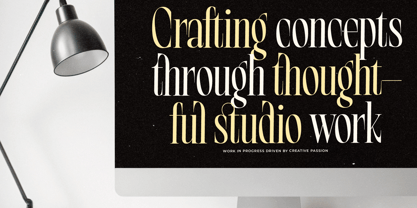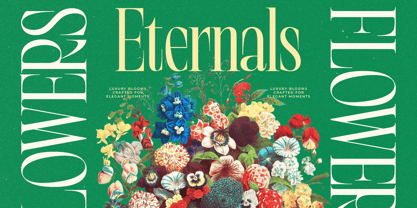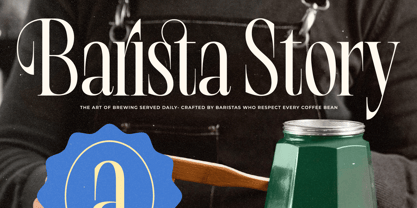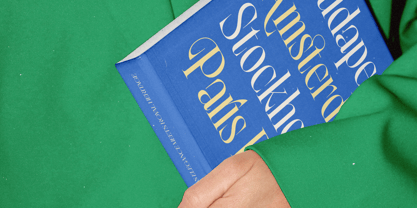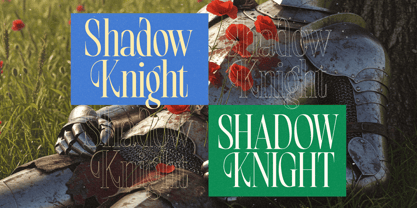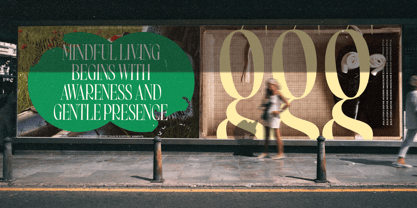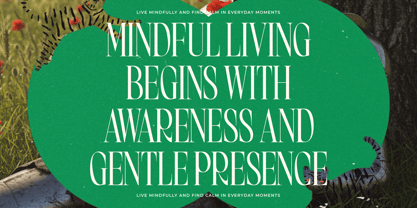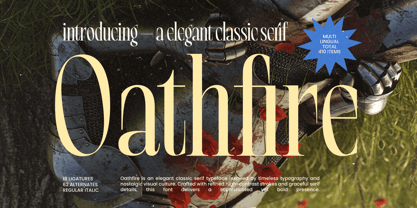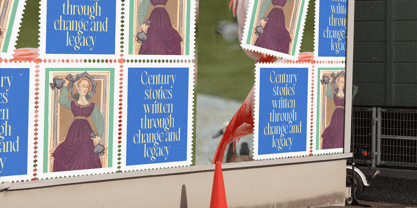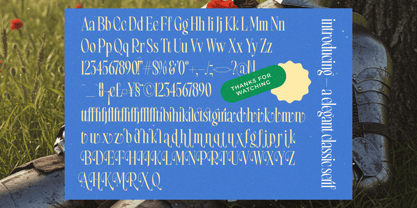
Oathfire
von Timelesstype Studio
Die Schriftfamilie Oathfire wurde von Heru Utama Putra entworfen und von Timelesstype Studio veröffentlicht. Oathfire enthält 2 Stile und Familienpaketoptionen. Mehr über diese Familie
Oathfire is an elegant high-contrast classic serif crafted with refined details and a timeless visual sensibility. Inspired by noble medieval aesthetics and luxury editorial typography, this typeface blends graceful curves, sharp serifs, and sophisticated proportions to deliver a bold yet delicate presence. Featuring 410 total glyphs, 18 ligatures, 62 stylistic alternates, and full multilingual support, Oathfire brings expressive versatility for branding, magazines, packaging, book covers, and artistic visual identities.
Designer: Heru Utama Putra
Aktuelle Foundry: Timelesstype Studio